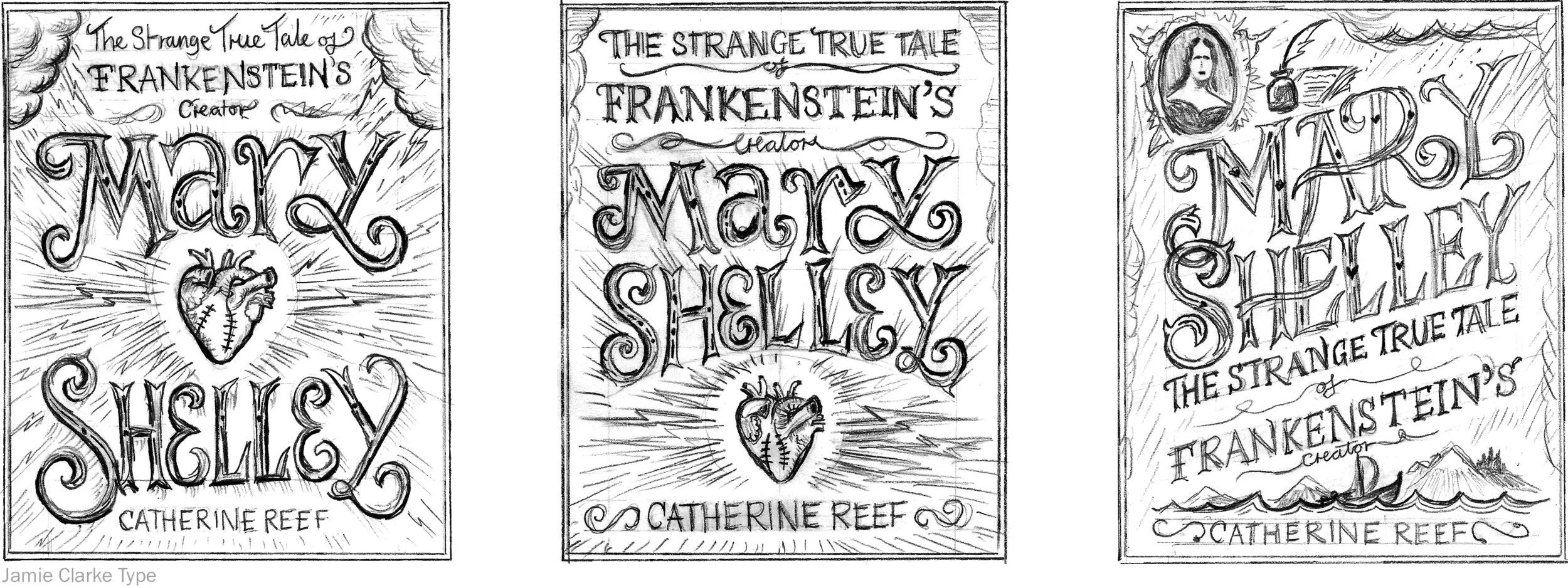
Mary Shelley, book cover
To mark the 200th anniversary of Frankenstein's publication, Houghton Mifflin Harcourt have published a biography of its author, Mary Shelley.
Aimed at a teen audience, Catherine Reef's riveting biography reads like a dark gothic novel, filled with scandal, death, drama, and chronicles one of the strangest love stories in literary history.
The brief originally suggested including a portrait of Mary Shelley as the main image but I there was a stronger alternative to convey the story.
I hit on the idea of a human heart, or “organ of the monster” to represent several symbolic connections to Mary Shelly’s story:
- The organ of the monster (with obvious stitch marks)
- Percy Shelly's heart which was taken from his funeral pyre and buried with Mary Shelley
- Love and romance themes in the story
- The story's atheist themes (a corrupt version of the Christian 'Sacred Heart' icon)
The Cover was to be gothic looking, as well as “moody and romantic and maybe a little creepy”.
Sketches exploring layout options of the lettering, heart and compositional elements
The refined sketch.
Stylised, black and white heart sketch with stitches.
The final cover with extra colours applied.